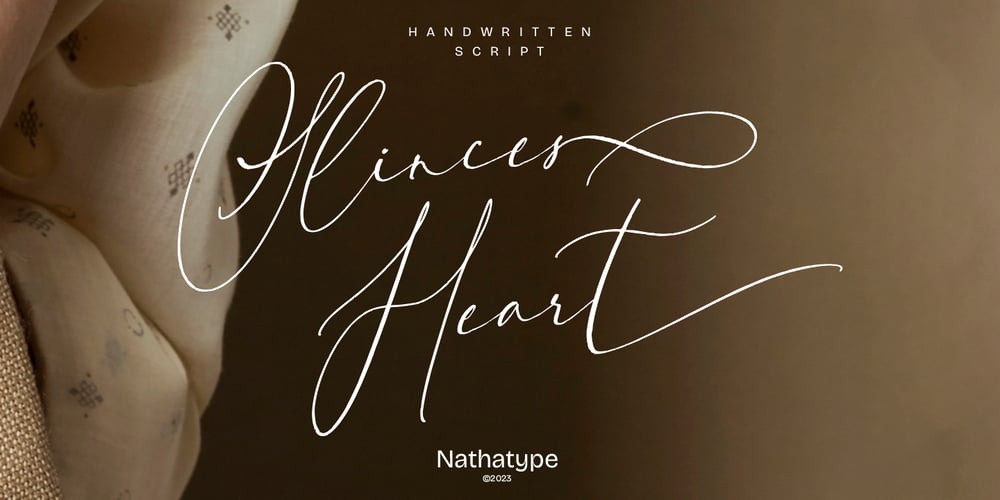
Slinces Heart Font Family was designed by Donis Miftahudin and published by Nathatype. Slinces Heart contains 1 styles and family package options. Slinces Heart is a captivating script font that captures the essence of handwriting with a touch of romance. Each letter in this font is meticulously crafted with fairly high line contrast, adding a dynamic and eye-catching quality to the font. The swinging endings in Slinces Heart add a flourish of creativity and uniqueness. With its smooth and flowing letterforms, this font offers a natural and seamless writing style. For the best legibility you can use this font in the bigger text sizes.